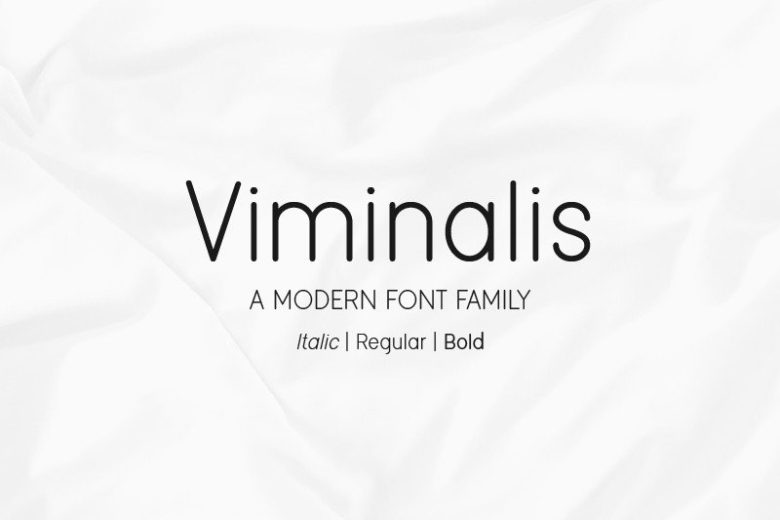
Viminalis Font Family
Viminalis Font Family is a modern and clean rounded sans serif font. It’s a versatile font family designed for strong, classic branding.
Viminalis Font Family is perfect for any branding, logos, magazines, videos, weddings, quotes, print, product packaging, website, clothing designs and much more.